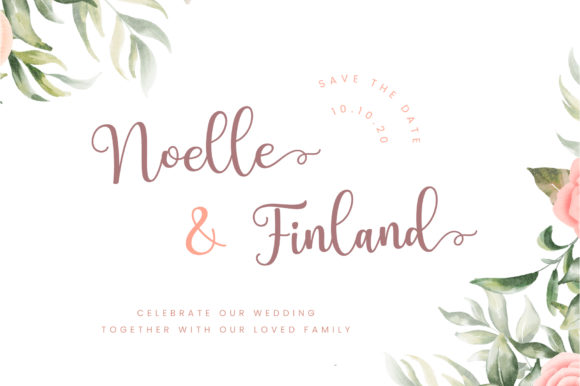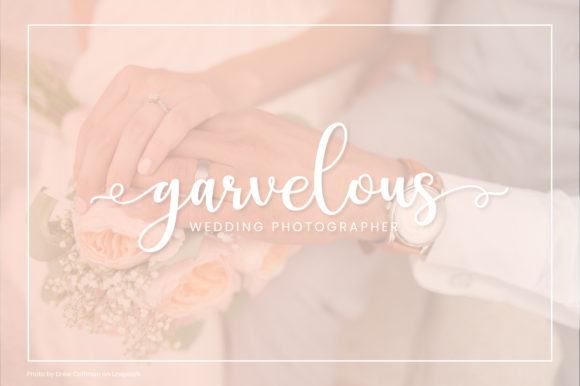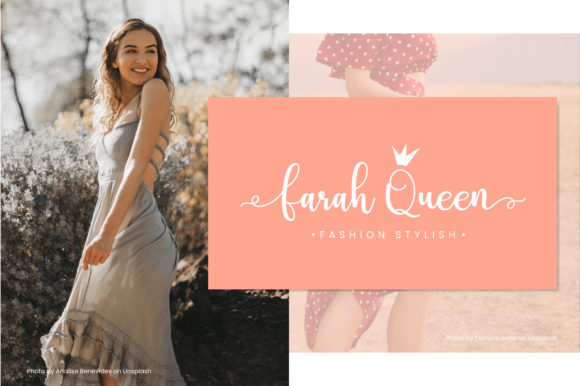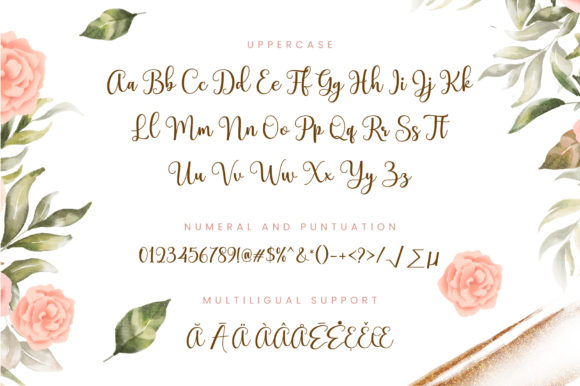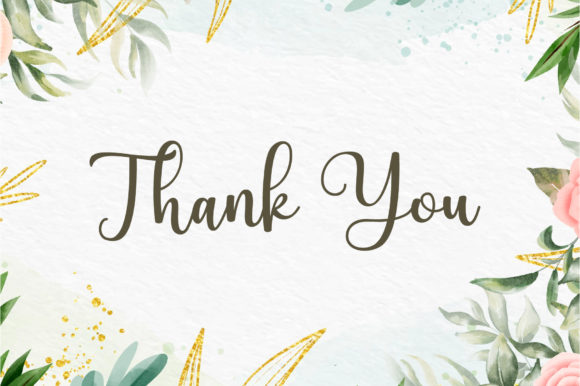
Charmlatte Font
About Charmlatte Font
Charmlatte is a sweet and romantic handwritten font. It features a varying baseline, smooth lines, gorgeous glyphs and stunning alternates. Add it to each of your dreamy designs and you will love the outcome.